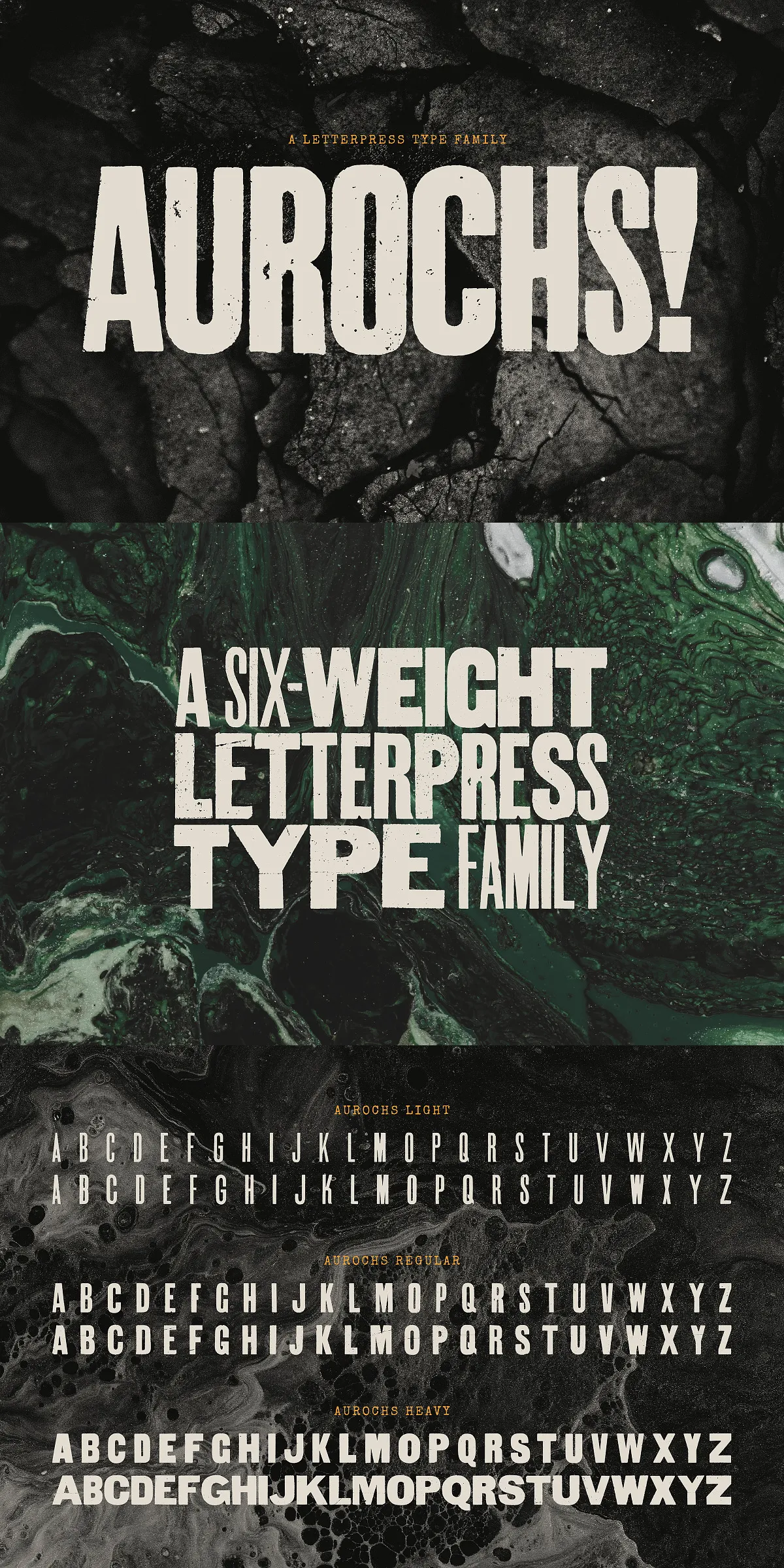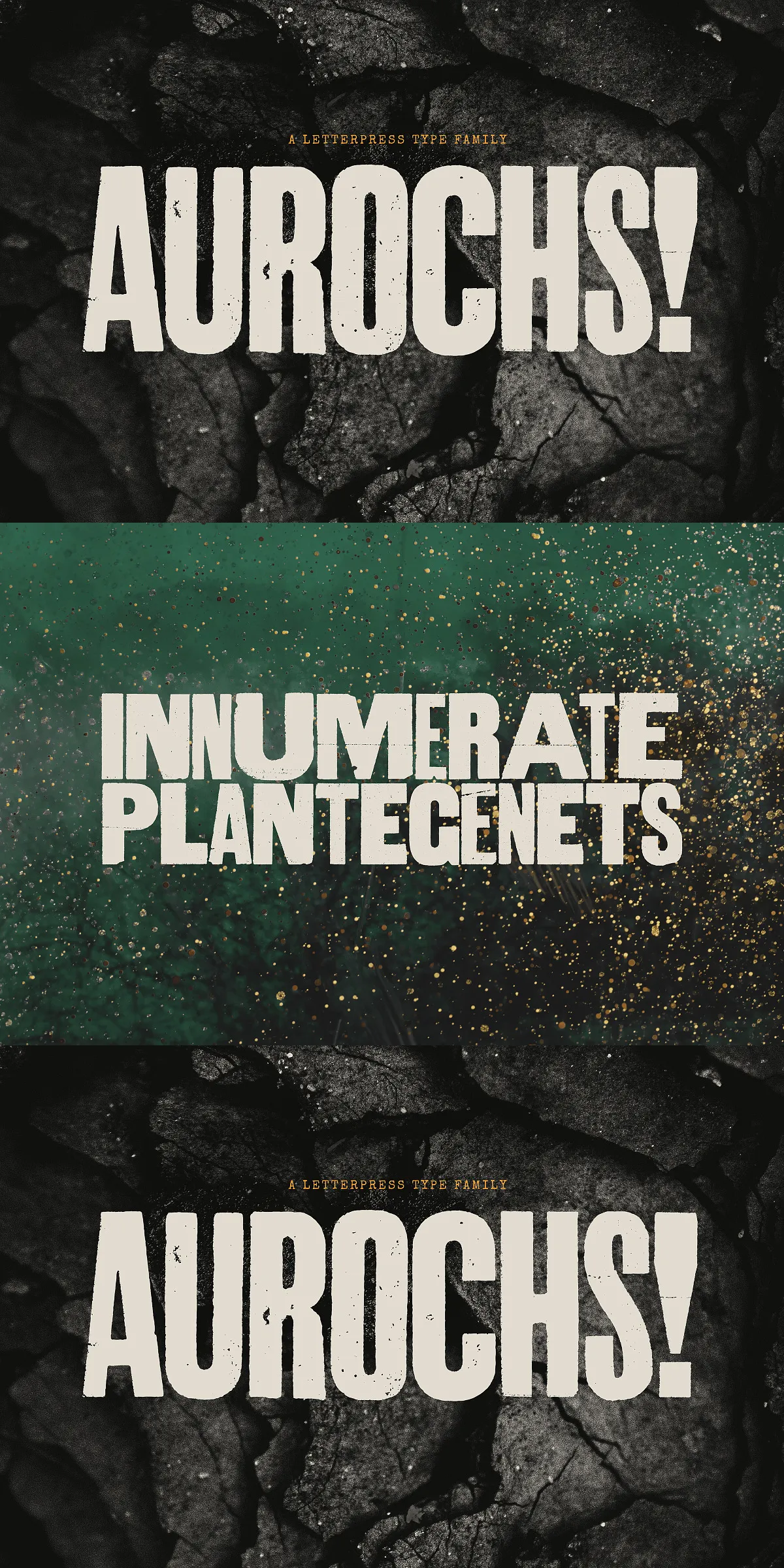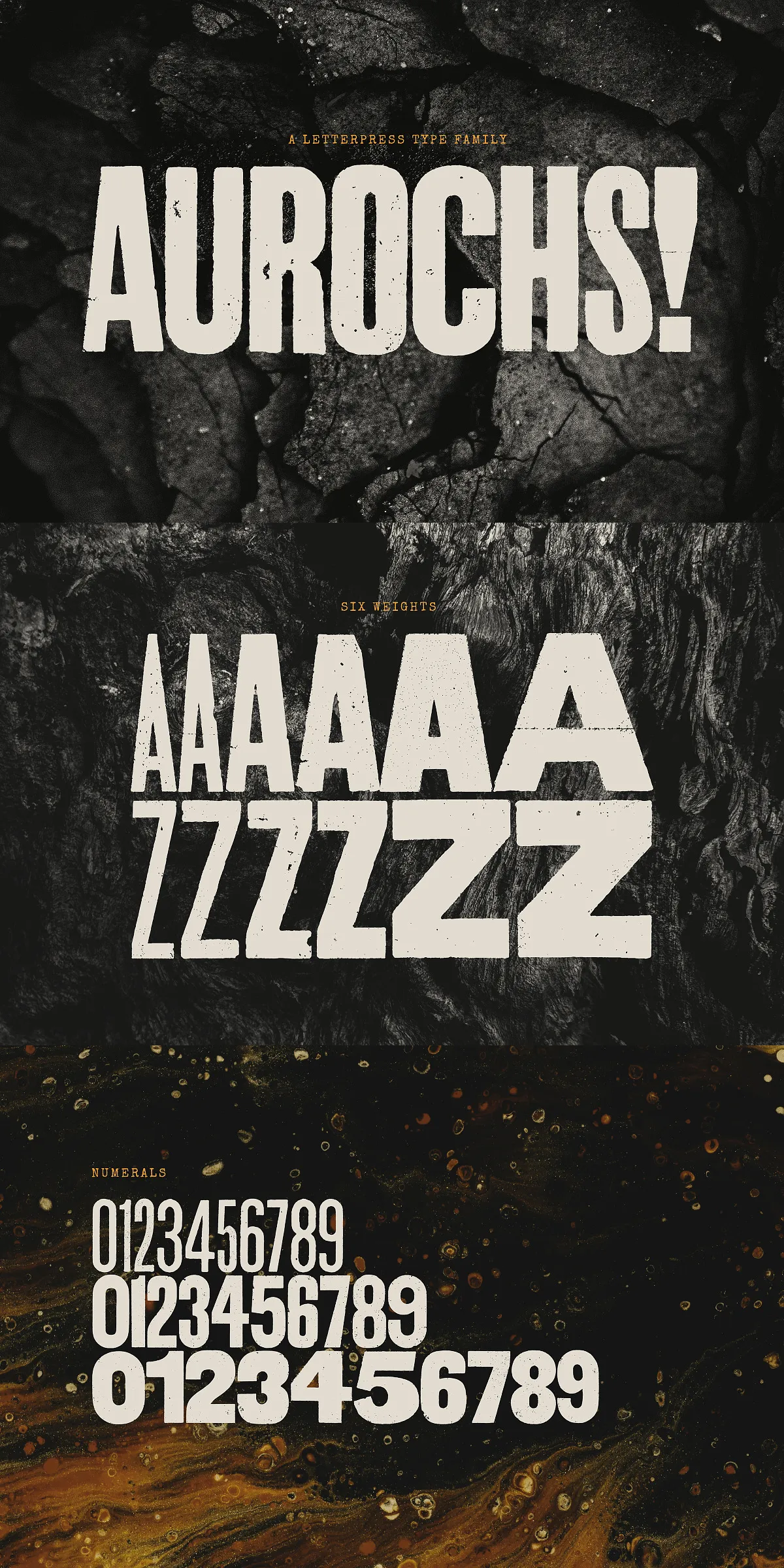
Aurochs is a striking and versatile display type family developed from authentic scans of vintage letterpress and woodblock prints. Its design harkens back to the original typographic wild west era, characterized by handcrafted, imperfect, and often mismatched letterforms. This deliberate irregularity creates a captivating, controlled chaos, imbuing any design with a distinctive and rugged character. Ideal for editorial design, branding, and posters, Aurochs brings a sense of authenticity and historical charm to your projects.
Authentic Vintage Inspiration and Design Essence
Drawing deeply from the aesthetics of early printmaking and western typography, Aurochs captures the essence of a bygone era when type was created by hand rather than digitally. This font family replicates the raw and organic feel of letterpress and woodblock techniques, embracing imperfections and variations in weight and style that give each letter unique personality. The result is a nostalgic yet dynamic font family that commands attention and conveys a story of craftsmanship.
Multiple Weights and Variations for Creative Flexibility
Aurochs offers a carefully curated set of six weights, ensuring that designers can achieve both subtlety and boldness within a consistent visual language. The core weights — light, regular, and heavy — each come paired with two additional variations, enhancing the stylistic range. This flexibility allows creative professionals to mix and match styles while maintaining coherence in their typography, perfect for layered editorial layouts and compelling branding narratives.
Comprehensive Character Set and File Formats
This type family is designed to cover all essential typographic needs. Featuring capitals only, Aurochs includes a full English alphabet, numerals, and punctuation marks, making it ready for a wide range of design applications. Additionally, the font family is available in both desktop and webfont formats (OTF, WOFF, and WOFF2), allowing seamless integration into print and digital environments alike. Whether you are creating a bold poster or an engaging brand identity, Aurochs offers reliable technical compatibility and aesthetic appeal.
Perfect for Editorial, Branding, and Poster Designs
Aurochs is particularly well-suited to projects requiring an impactful and authentic visual voice. Its distinctive vintage style makes it an excellent choice for editorial publications aiming for a strong personality, for brands seeking to root their identity in heritage and craftsmanship, and for poster designs that demand attention and storytelling power. With Aurochs, your work gains an unmistakable character that resonates with audiences and enhances communication.
Embrace Controlled Chaos with Aurochs
The charm of Aurochs lies in its celebration of the imperfect and handmade qualities of vintage typography. The letterforms exhibit subtle irregularities and mismatched weights that simulate the original wild west typographic style. This controlled chaos is not only visually engaging but also allows designers to inject energy and authenticity into their projects, making Aurochs a font family that stands out in today’s digital design landscape.